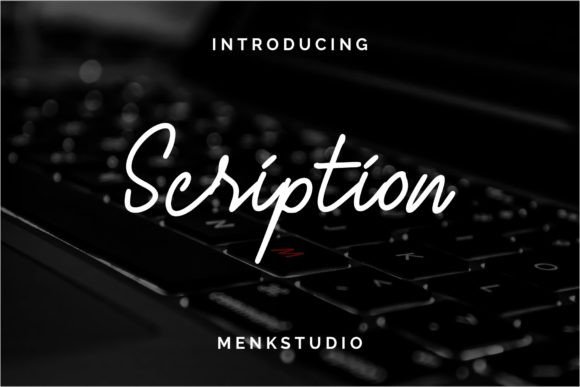
Introducing Scription Font, the epitome of elegance and timeless beauty, crafted by MENK Studio. Immerse yourself in the world of exquisite typography with Scription, a flowing handwritten font that captures the essence of artistry.
Step into a realm where creativity knows no bounds, where words dance with grace and charm. Scription is the perfect companion for your creative endeavors, whether it's designing captivating logos, crafting heartfelt invitations, or adding a touch of sophistication to your social media posts.
With its elegant curves and sweeping strokes, Scription has the power to transform ordinary designs into extraordinary masterpieces. It's the perfect font for those seeking to add a touch of luxury and sophistication to their projects.
Indulge in the beauty of Scription's intricate details and let your imagination soar. Each letterform is a work of art, carefully crafted to convey a sense of elegance and refinement. The result is a font that exudes charm and sophistication, making it the perfect choice for any project that demands attention.